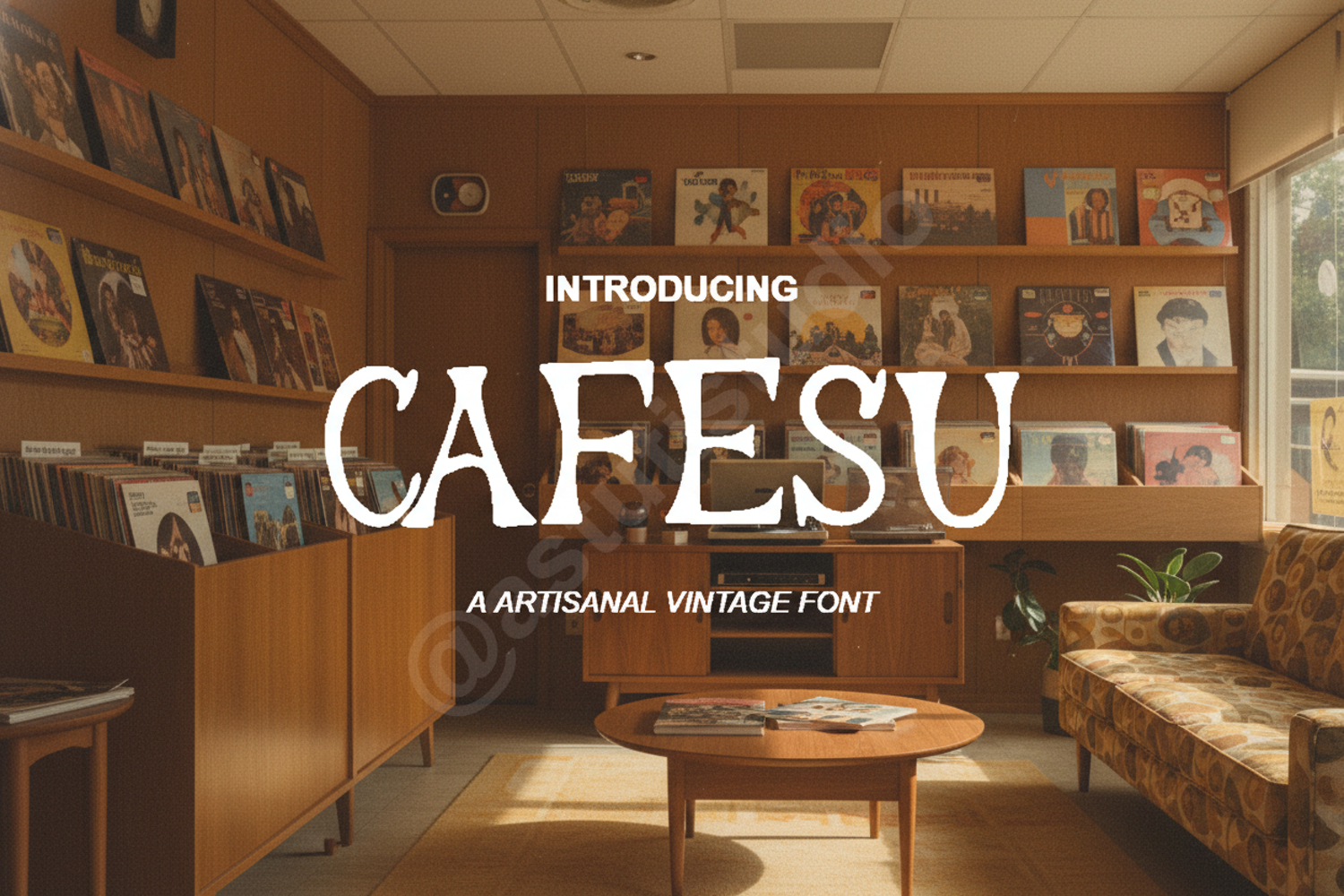
Cafesu - Elegant Modern Serif Display Font
Cafesu
Cafesu is a premium serif font that exudes sophistication and modern charm. Carefully crafted with clean lines and unique stylistic touches, this font is designed to elevate your creative projects to a professional level. Whether you are aiming for a minimalist aesthetic or a bold statement, Cafesu provides the versatility needed for high-end design.
- Complete set of uppercase and lowercase letters
- Branding and Identity: Create memorable logos and brand guidelines.
- Wedding Stationery: Perfect for elegant invitations and place cards.
- Editorial Design: Ideal for magazine layouts and book covers.
- Social Media: Enhance your Instagram posts and digital marketing assets.
- Packaging: Add a touch of luxury to product labels and boxes.